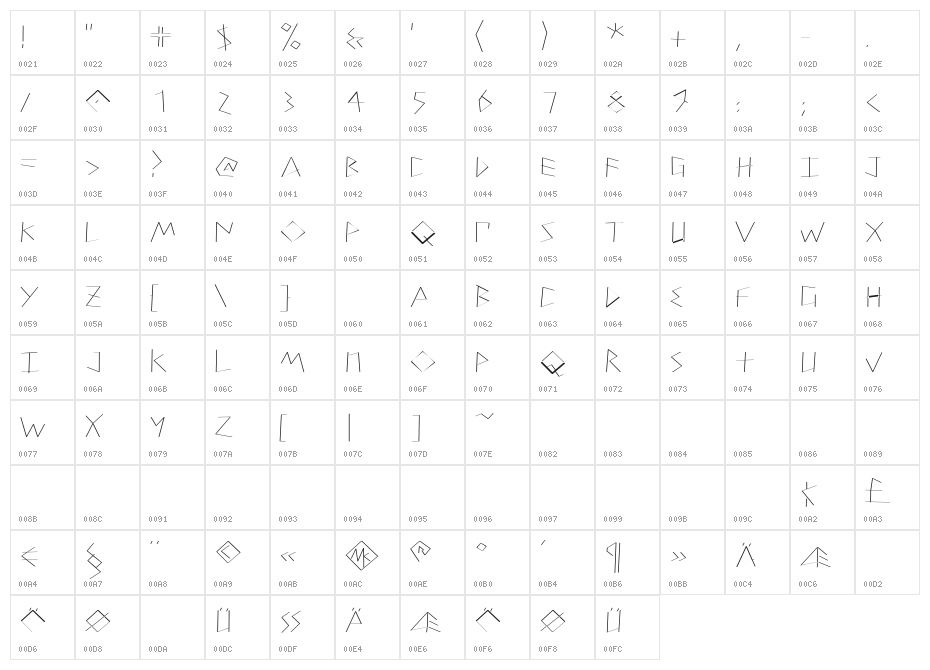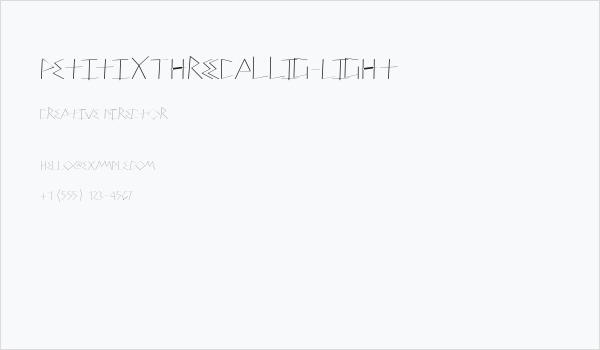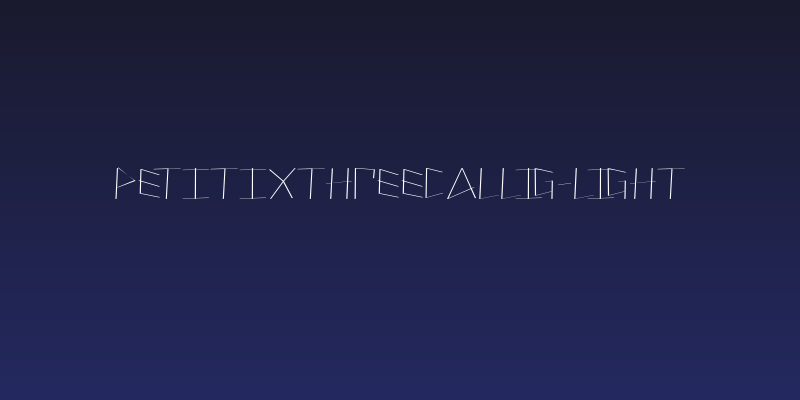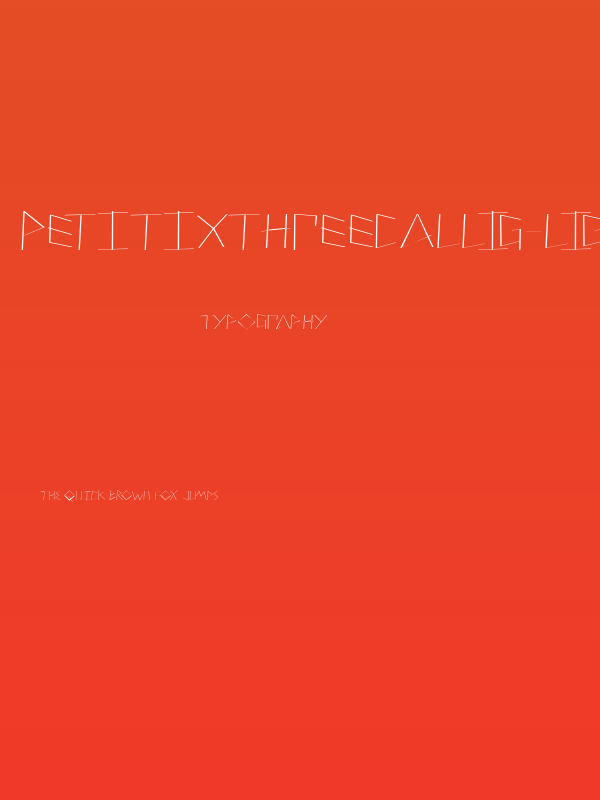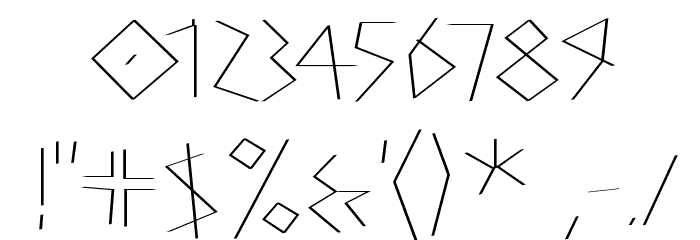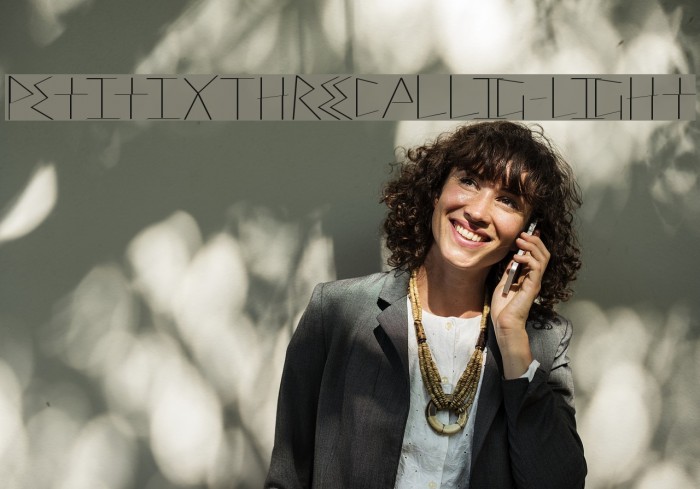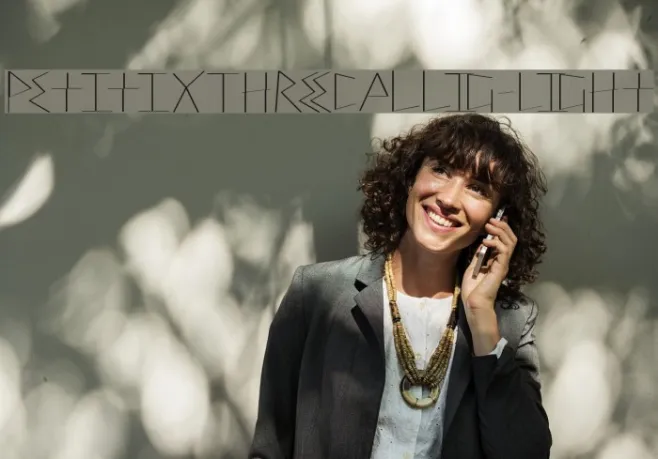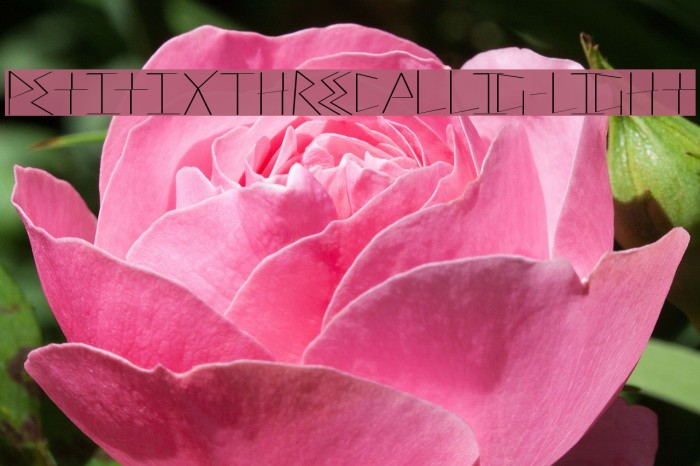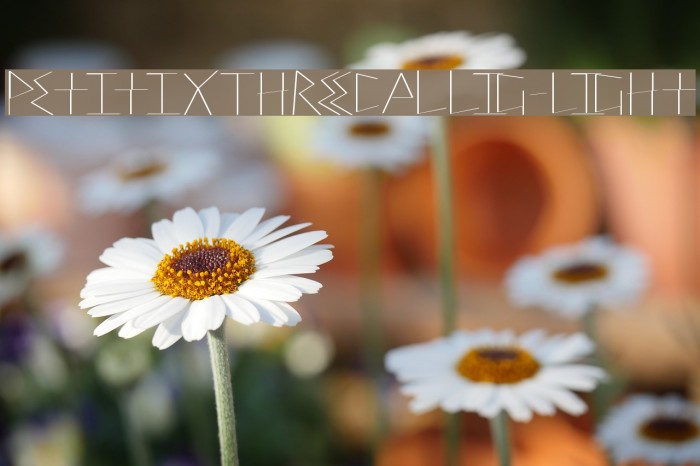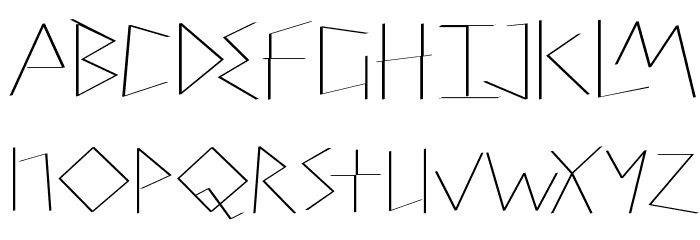
PetitixThreeCallig-Light Font
PetitixThreeCallig-Light Description
This font features a unique and artistic design with a geometric and angular style. Each character is crafted with sharp lines and distinct angles, giving it a modern and edgy appearance. The uppercase and lowercase letters maintain a consistent style, with a focus on minimalism and simplicity. The numbers and special characters follow the same design principles, ensuring a cohesive look across all elements. This font is ideal for projects that require a contemporary and unconventional aesthetic, making it suitable for creative branding, posters, and digital art.